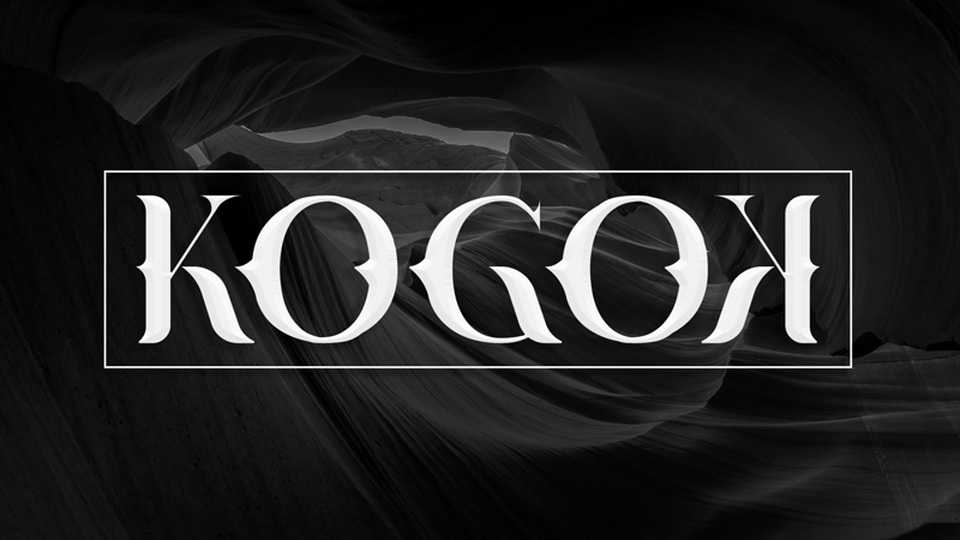
Download Kogok is a decorative display typeface with a vintage handcrafted appearance. Kogok font is great for posters and lettering artworks.
Designer: Gesang K. Khoiron